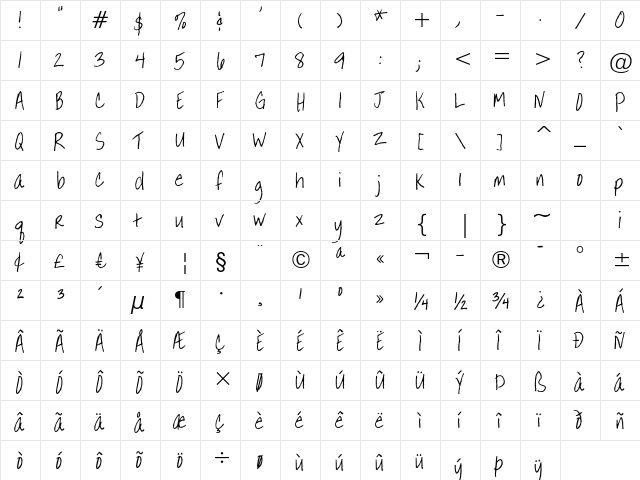
Annie BTN Regular
| Designer | Stuart Sandler |
Design Context for Annie BTN Typeface
Annie BTN offers clean, dependable letterforms without strong stylistic allegiance, making it a practical choice for designers who need flexibility.